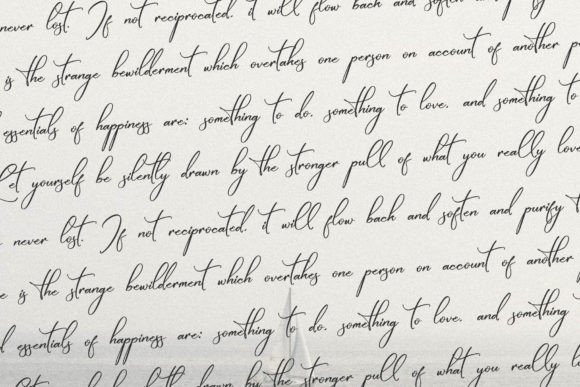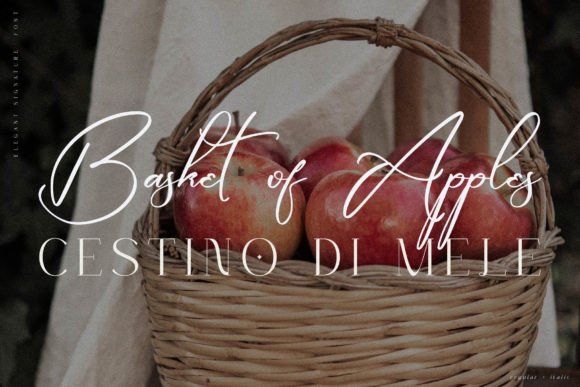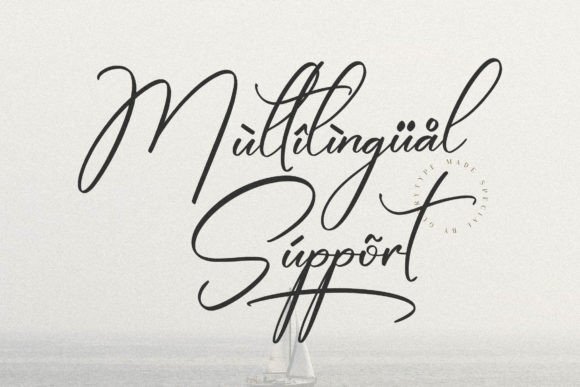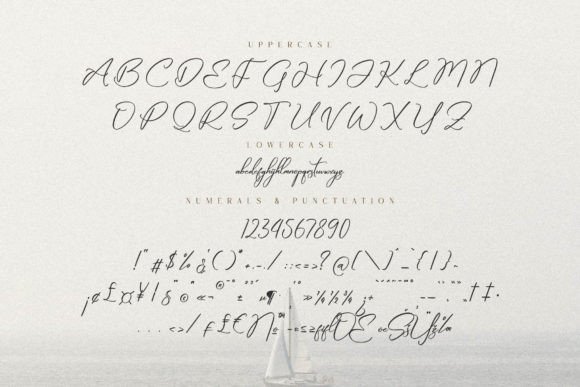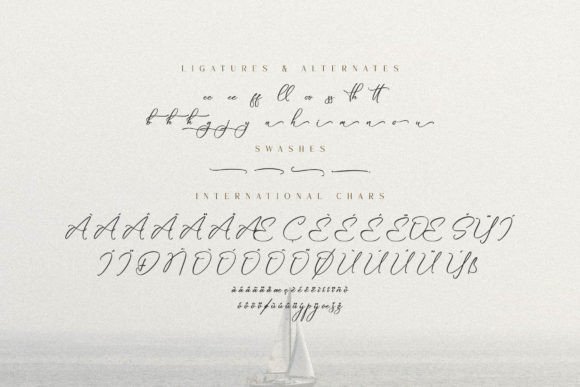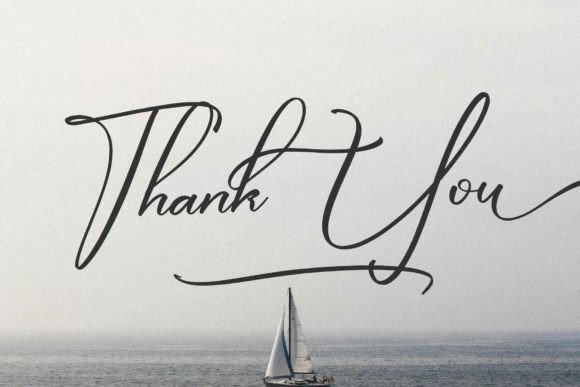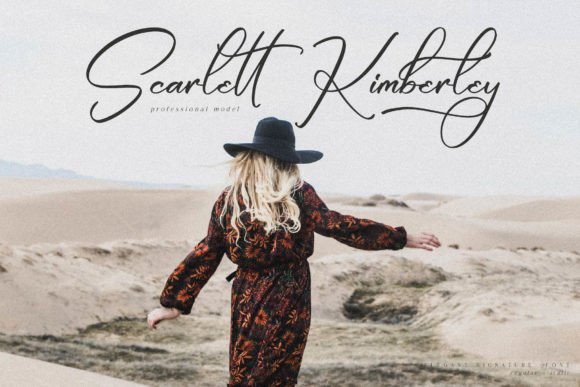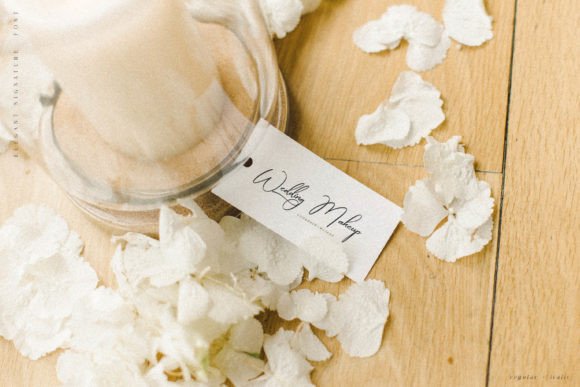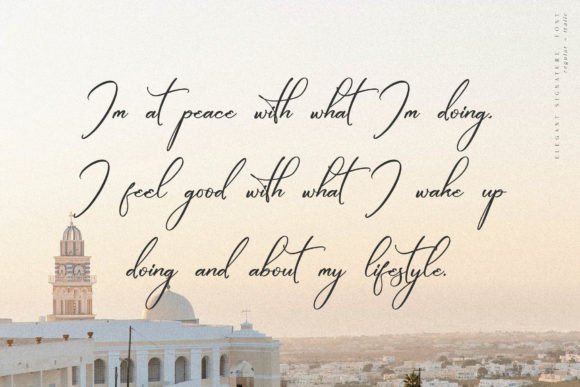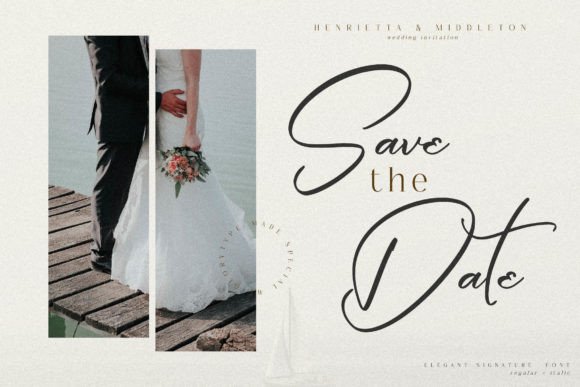
Fanthemy Font
Add Charming Elegance with Fanthemy Font
The Fanthemy font is a charming and elegant handwritten script designed to add sophistication and warmth to your creative projects. Its graceful letterforms make it ideal for wedding invitations, thank you cards, quotes, logos, business cards, and any design that requires a personalized handwritten touch.
Perfect for Weddings, Thank You Cards, and Branding
Whether you’re designing elegant wedding stationery, heartfelt thank you cards, or professional branding materials, the Fanthemy font brings a refined and inviting feel. It is also well-suited for greeting cards, social media graphics, and other creative projects, adding beauty and emotion to your designs.
A Handwritten Script Full of Personality
Each character in the Fanthemy font is carefully crafted to deliver smooth flow and excellent readability. The font’s flowing strokes and balanced design create visually appealing compositions that elevate your text and engage your audience.
Despite its decorative style, the Fanthemy font maintains clear readability at various sizes. Whether used for large headlines or smaller accents, it balances elegance with clarity, making it a versatile choice for a wide range of projects.
Make Your Designs Stand Out with Grace